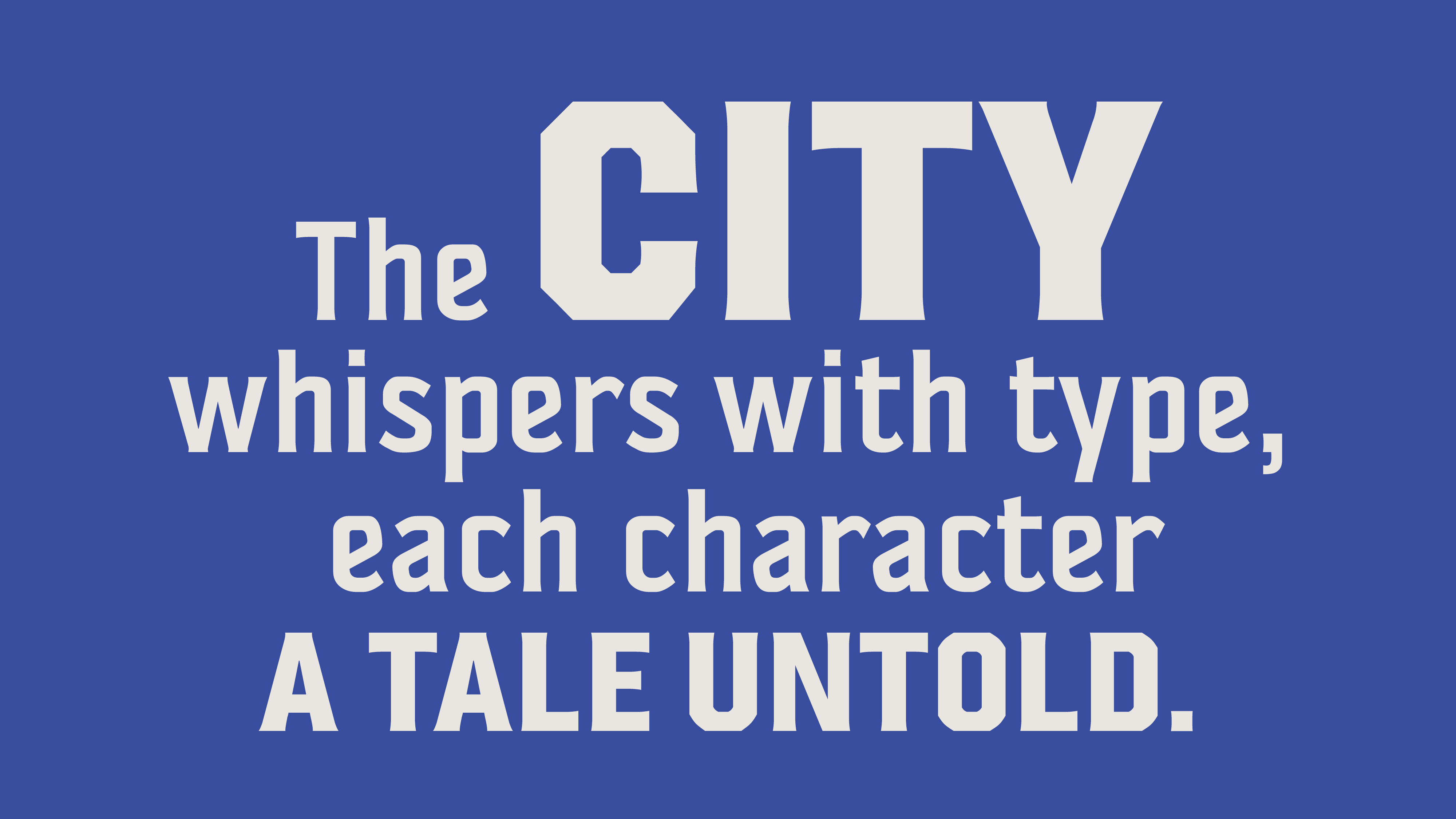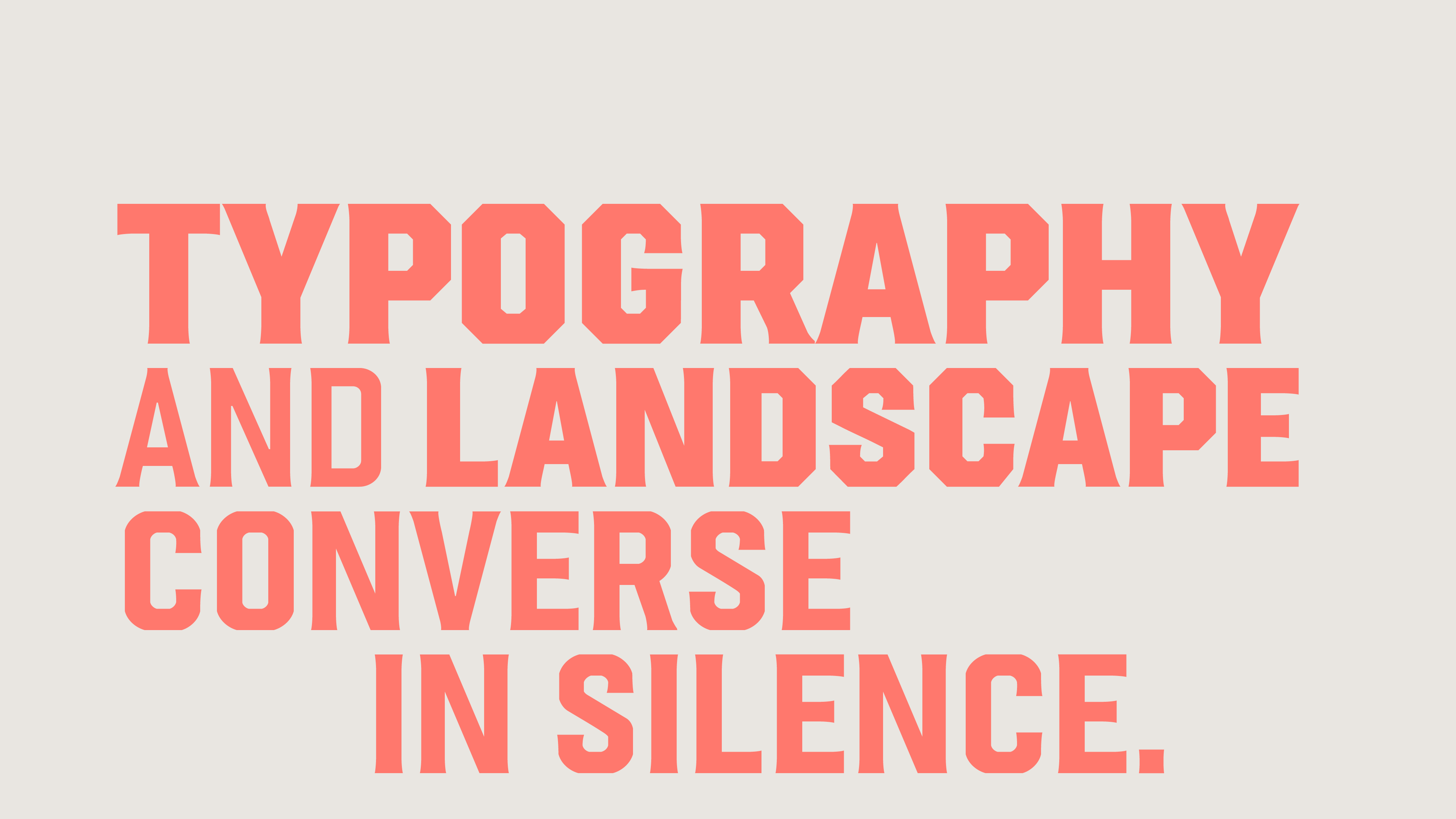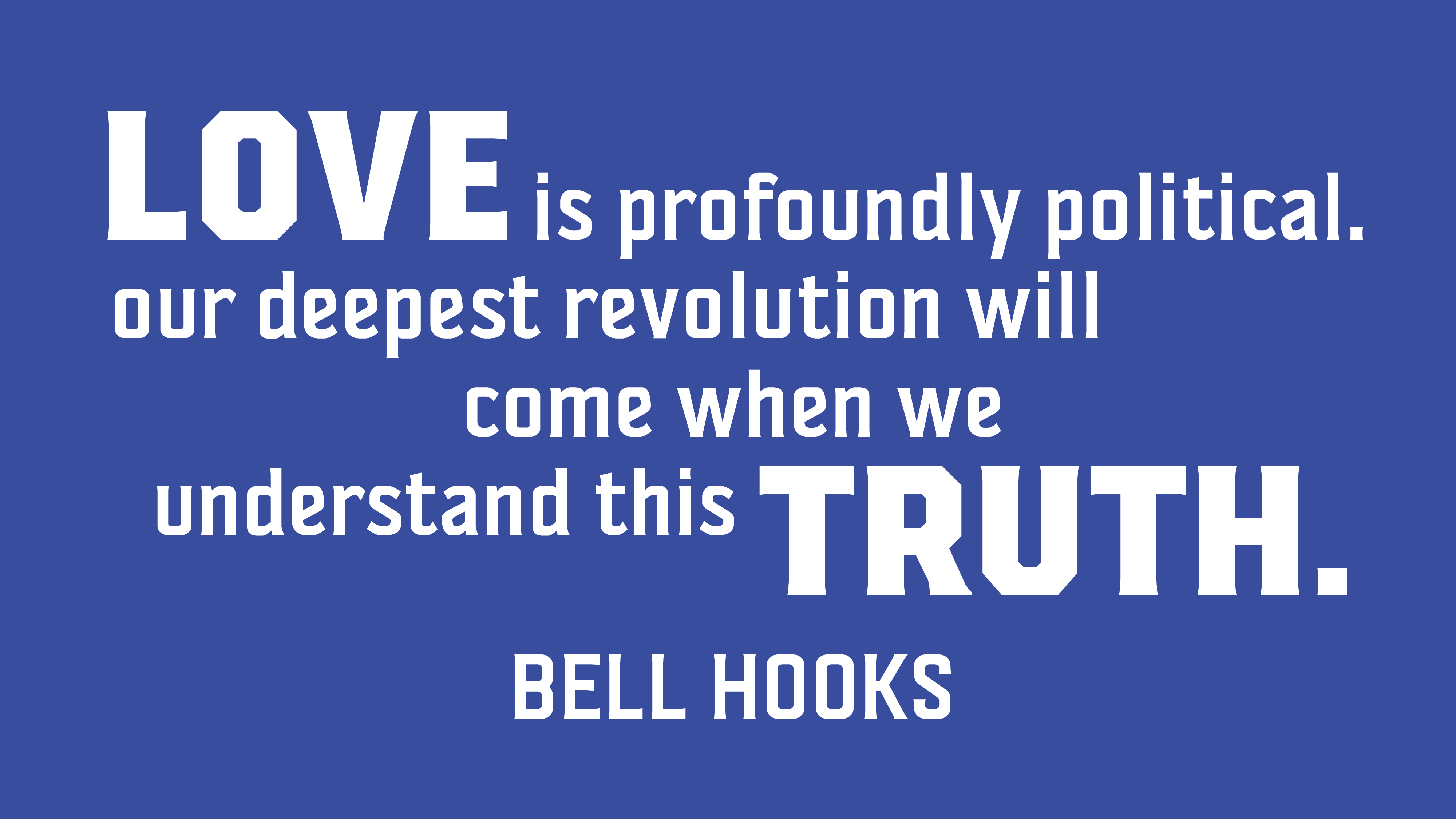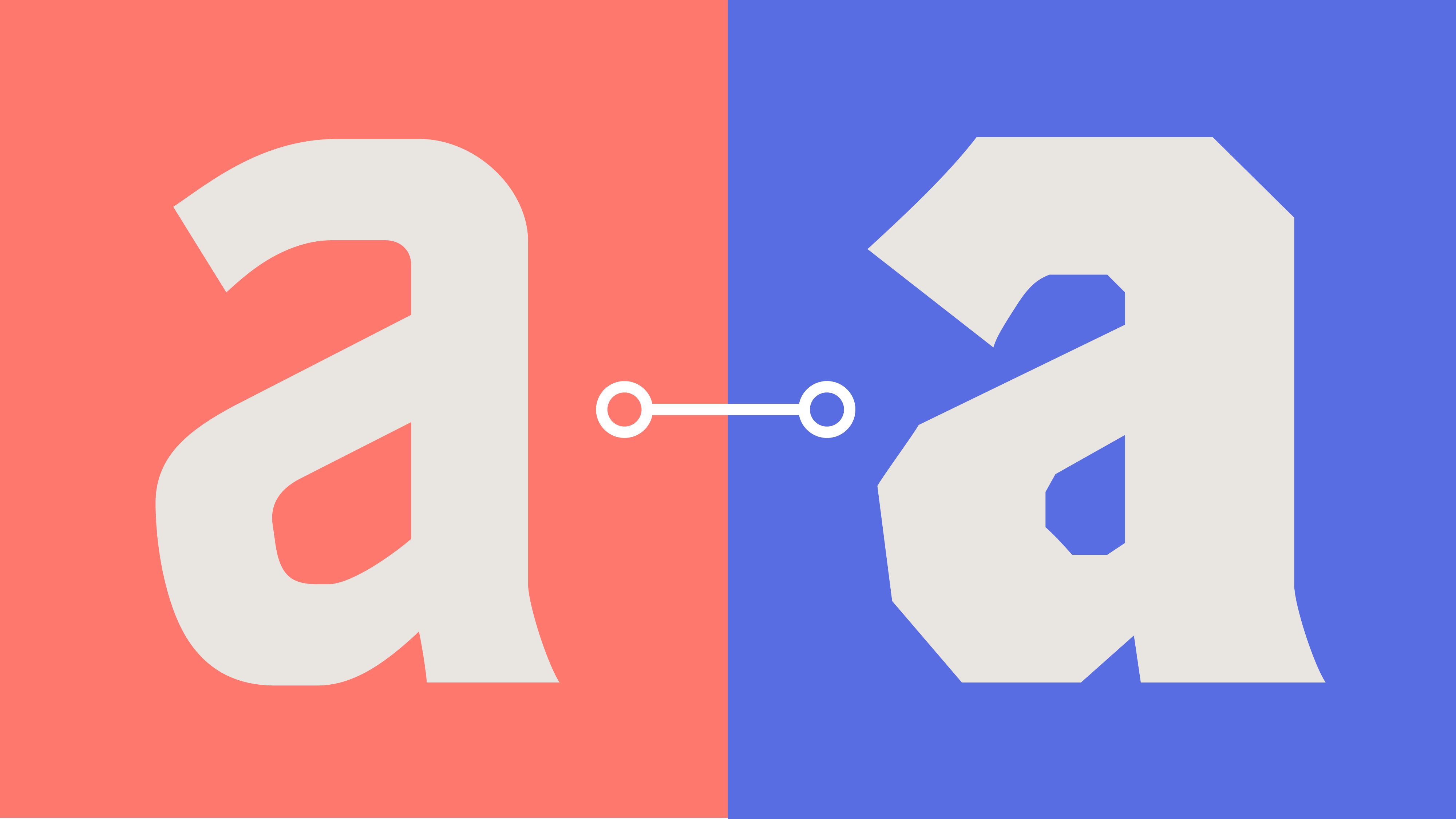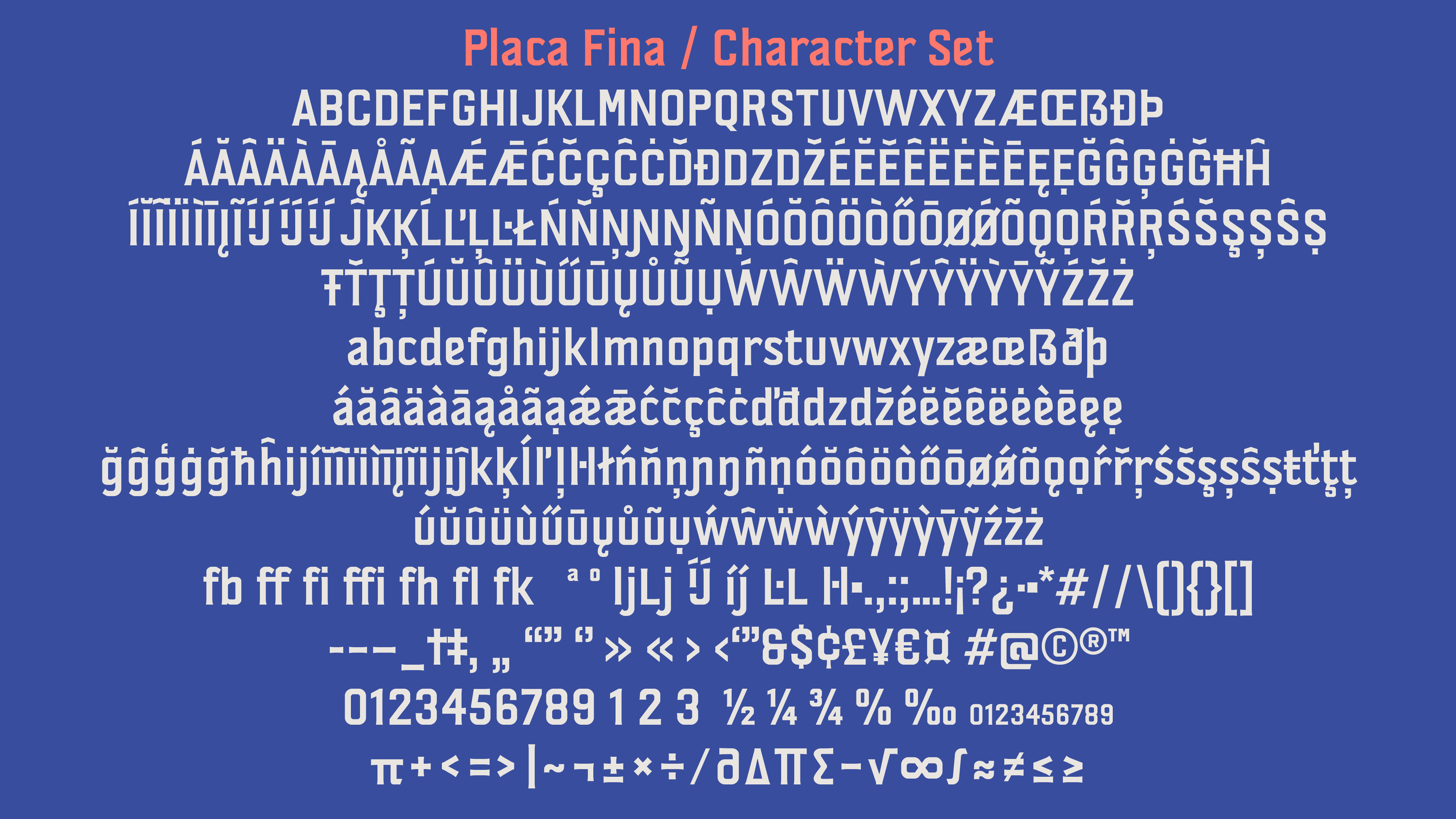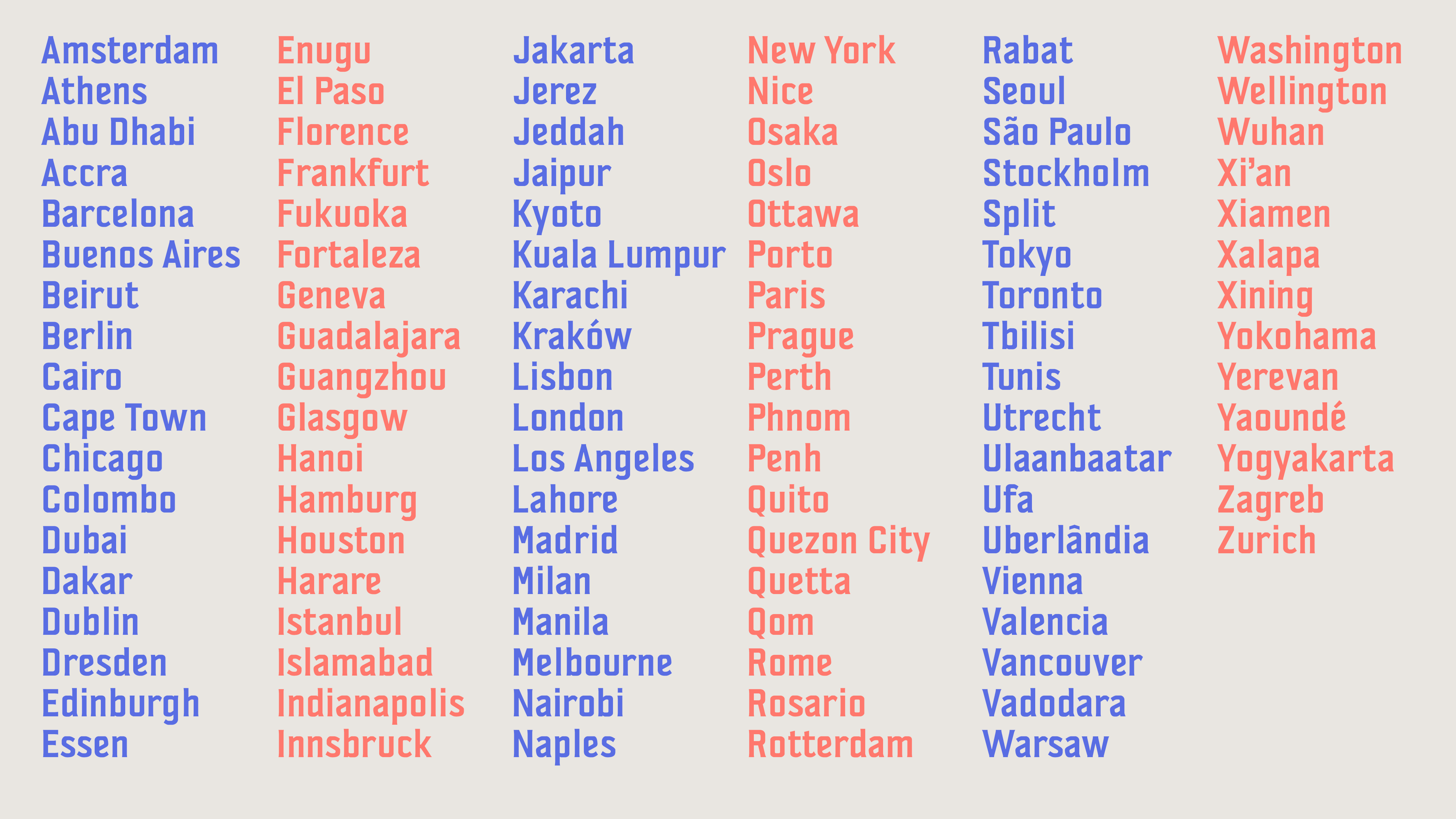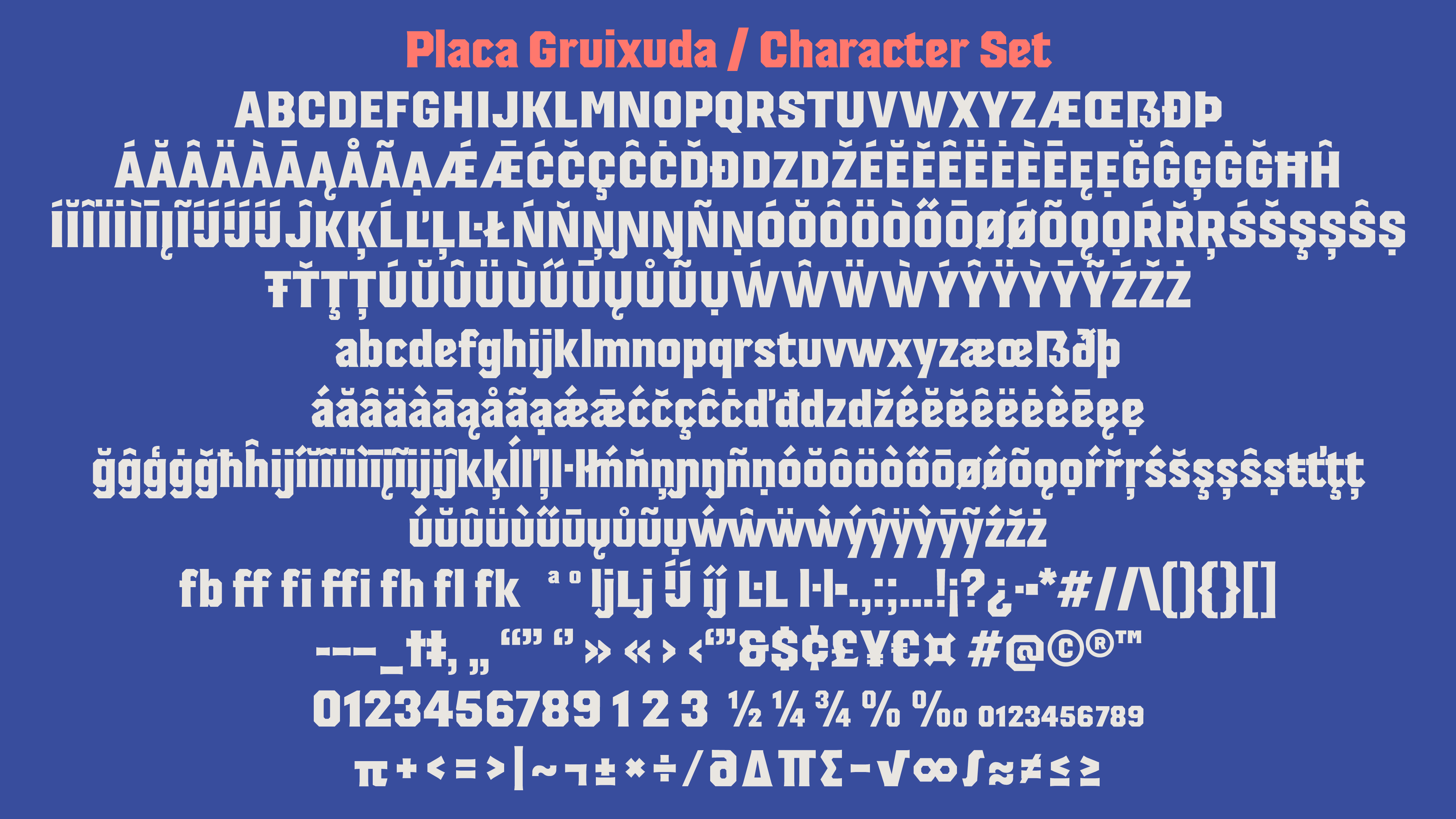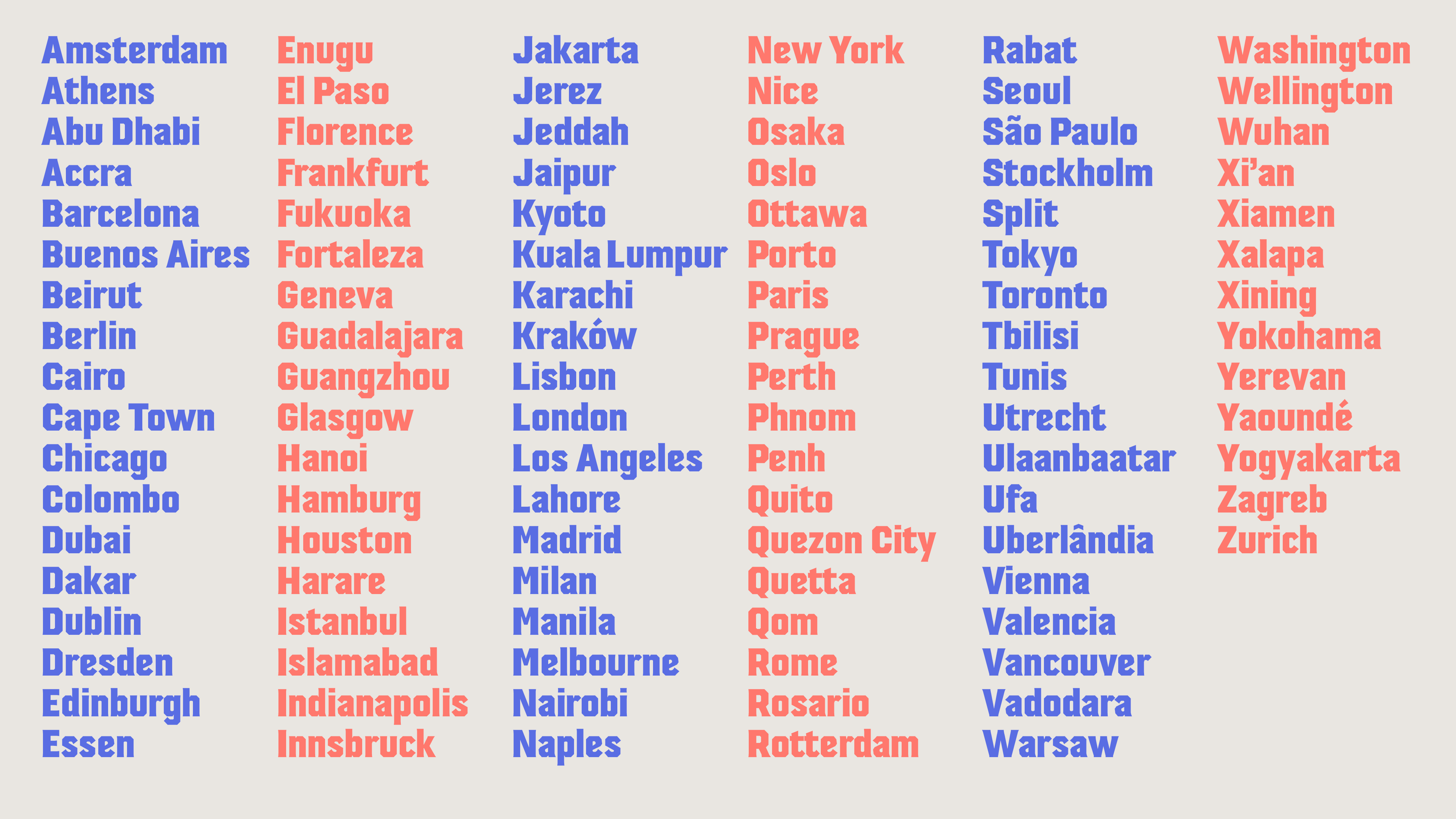
Laura Meseguer
Placa is Laura’s typographic interpretation of the most prevalent lettering style found on Barcelona’s street signs. The development of the PLACA typeface family took place in two distinct phases, beginning as a specific commission for the documentary ‘Barcelona. The Rose of Fire’ in collaboration with Mariona Omedes of Nueve Ojos and Media Pro’s production team, directed by Manuel Huerga.
The objective was to create a typeface that represented Barcelona. The key question was: Which typeface would best represent the city?. At the time, and still today, Barcelona lacked a clear and strong typographic identity. Inspiration came from the streets of Barcelona were Laura identified that the predominant typeface in signage was a condensed geometric sans serif. The result was an incised sans serif typeface, designed with stylistic details that make it stand out in display use while remaining functional and readable.
Years later, Laura decided to revitalize Rosa de Foc, expanding it into a complete typeface family. The PLACA family now ranges from Fina to Gruixuda weights and includes a Variable Font, improving its performance in small sizes and on screens. It is also used as a custom typeface on her personal website. The name Placa, meaning “Plate” in both Spanish and Catalan, was chosen in a conversation with Ferran from Toormix.